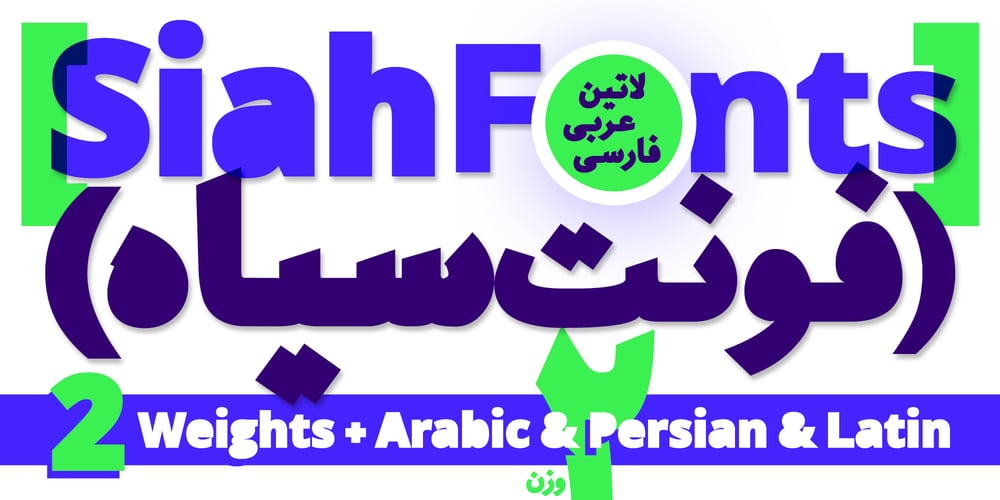
Siah
Siah font
Siah Font Family was designed by Shahab Siavash and published by Si47ash Fonts. Siah contains 2 styles and family package options. Extra bold, extremely black! Siah font comes with 2 weights and provides a modern and clean sans serif Arabic/Persian type experience for headlines and headings! Siah means “Black” in Persian. This font also supports basic Latin. The complete font family is a great choice for all graphic designers, typographers and visual artists.Shahab Siavash, the designer has done more than 30 fonts and got featured on Behance, Microsoft, McGill University research website, Hackernoon, Fontself, FontsInUse,… Astaneh text and headline font which is one of his latest designs, already got professional typographers, lay-out and book designers’ attention as well as some of the most recognizable publications in Arabic/Persian communities.